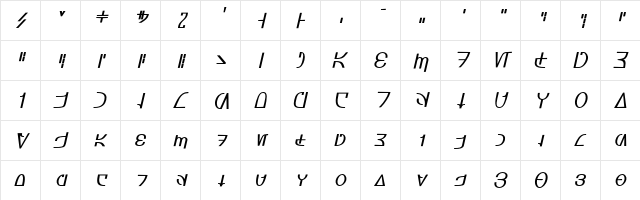
Aurebesh_Rodian Oblique
Design Context for Aurebesh_Rodian Typeface
Aurebesh_Rodian offers clean, dependable letterforms without strong stylistic allegiance, making it a practical choice for designers who need flexibility. The slanted form adds forward momentum and visual energy.
Pro Tip: Use Aurebesh_Rodian for emphasis, pull quotes, and subheadings where its slanted energy can add rhythm to the layout.